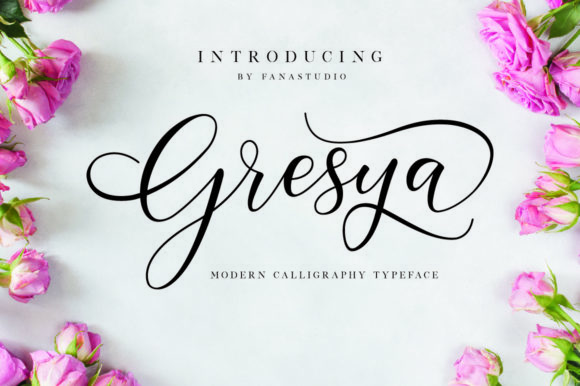
Prepare to be enchanted by Gresya Script Font, an artistic masterpiece that exudes grace and elegance. This captivating font belongs to the script font family, renowned for its flowing lines and enchanting curves. Discover a world of creativity as you explore the remarkable Gresya, meticulously designed by the talented team at fanastudio.
Gresya Script Font is more than just a collection of letters; it's an embodiment of beauty and sophistication. Its enchanting swashes add a touch of femininity and charm to any project, transforming your designs into works of art. Unleash your imagination and let Gresya's captivating curves take you on a journey of creativity.
With its impeccable style, Gresya is the perfect choice for a wide range of design projects. It adds a touch of elegance to wedding invitations, making them truly unforgettable. Create stunning social media posts that captivate your audience and leave a lasting impression. Gresya's versatility knows no bounds; it effortlessly elevates logos, branding materials, and product packaging, giving them a touch of sophistication that will make your brand shine.
Experience the limitless possibilities of Gresya Script Font and embark on a creative adventure today. Transform your designs into masterpieces with a font that speaks to the heart. Let Gresya's beauty enchant you and elevate your projects to new heights of elegance.